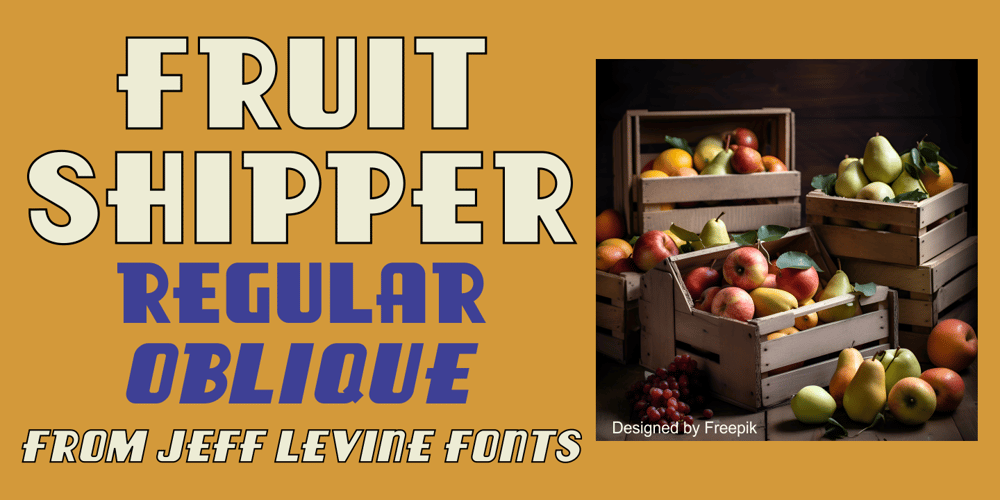
Fruit Shipper JNL Font Family was designed by Jeff Levine and published by Jeff Levine. Fruit Shipper JNL contains 2 styles and family package options. The ultra bold, Art Deco sans serif hand lettering found on a 1930s Spanish fruit crate label from the A. Valldecabres company served as the model for Fruit Shipper JNL, which is available in both regular and oblique versions.